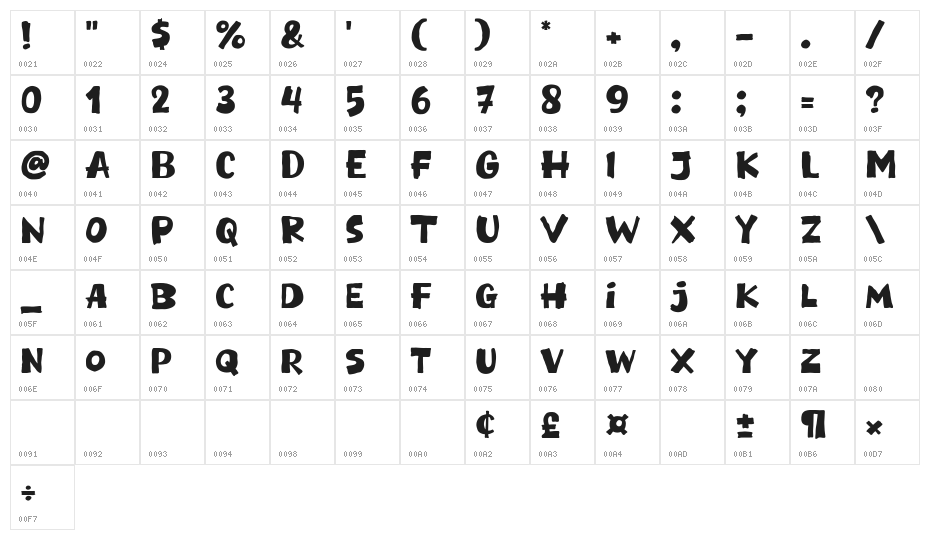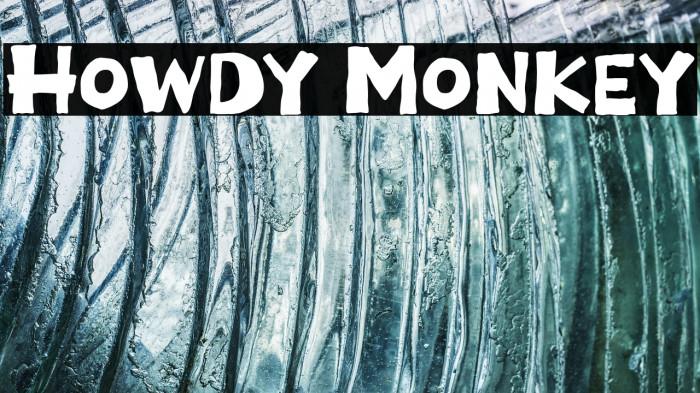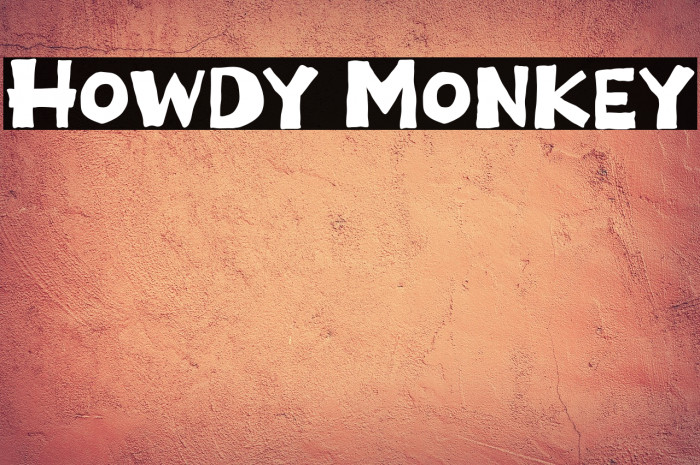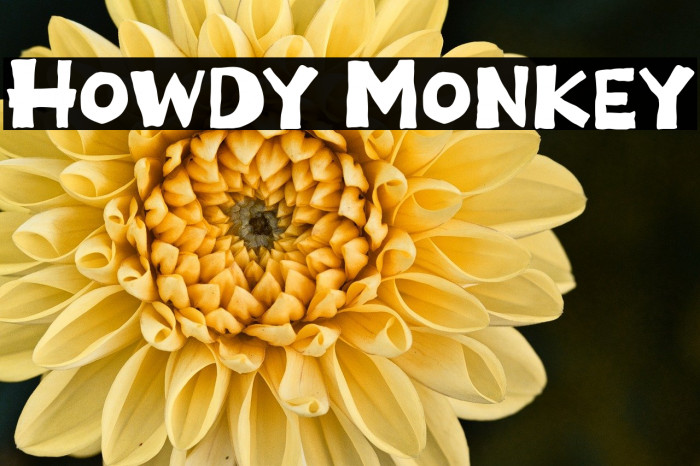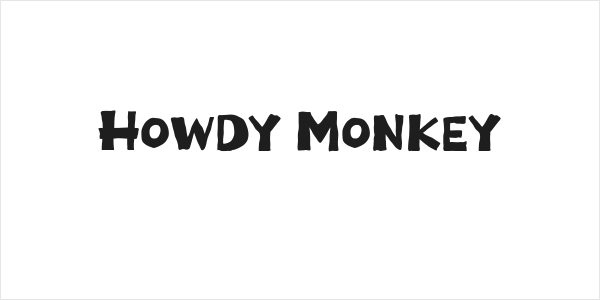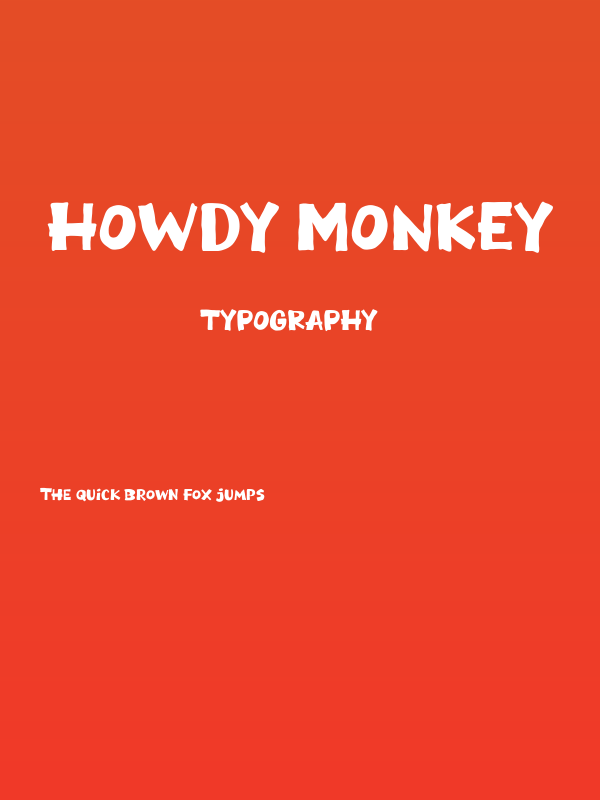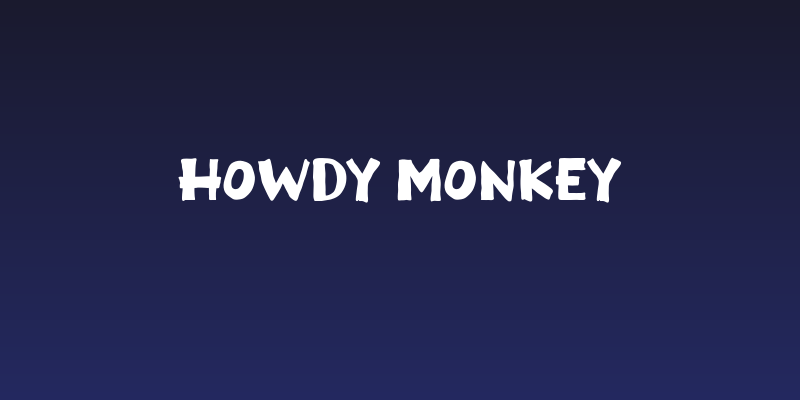
Howdy Monkey Font
A playful and bold font with a hand-drawn appearance, featuring irregular strokes and a casual style.
| Use Case | Headlines, Posters, Branding |
| Proposed Projects | Children's books, posters, casual branding. |